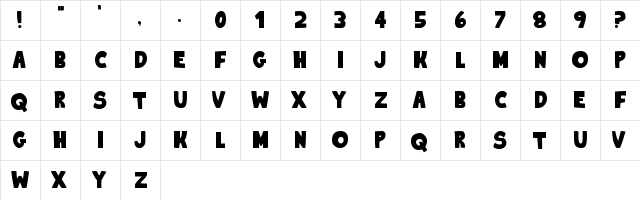
King Of The Hill 2 Regular
Design Context for King Of The Hill 2 Typeface
King Of The Hill 2 is a composed and adaptable typeface that performs quietly and consistently across a wide range of design contexts.